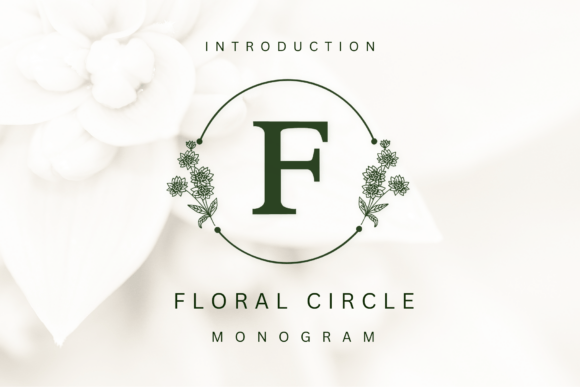
Floral Circle Monogram Font: Elevate Your Celebrations with Elegance
The world of typography is vast and diverse, with fonts ranging from simple and modern to intricate and ornate. For special occasions, a font that exudes elegance and sophistication is often desired. This is where the Floral Circle Monogram Font comes into play, a beautifully designed font that combines decorative letters with a stunning floral round frame. In this article, we’ll delve into the details of this exquisite font, exploring its features, uses, and benefits, particularly for invitations and wedding cards.
What is Floral Circle Monogram Font?
Floral Circle Monogram Font is an elegant and charming typeface designed specifically for special occasions. Its unique feature is the incorporation of decorative letters within a beautiful flower round frame, creating a monogram that is both sophisticated and eye-catching. This font is perfect for those looking to add a touch of luxury and refinement to their celebration stationery, including wedding invitations, birthday cards, and other festive announcements.
Key Features of Floral Circle Monogram Font
- Decorative Letters: The font features intricately designed letters that are both stylish and elegant.
- Floral Round Frame: A beautiful flower round frame encases the letters, adding a touch of nature and charm.
- Monogram Style: The font is designed to create stunning monograms, perfect for personalizing invitations and cards.
- Elegant and Sophisticated: The overall design exudes elegance and sophistication, making it ideal for special occasions.
Uses of Floral Circle Monogram Font
The versatility of Floral Circle Monogram Font makes it suitable for various applications, particularly in the realm of celebrations and special events. Here are some popular uses of this beautiful font:
Popular Use Cases
- Wedding Invitations: Add a touch of romance and elegance to your wedding invitations with this stunning font.
- Birthday Cards: Create personalized and memorable birthday cards with the Floral Circle Monogram Font.
- Invitations: Use the font for baby showers, bridal showers, anniversaries, and other celebrations.
- Stationery: Enhance your stationery, including letterheads, thank-you cards, and greeting cards, with this elegant font.
Benefits of Using Floral Circle Monogram Font
Choosing the right font for your special occasion stationery can be daunting, but Floral Circle Monogram Font offers numerous benefits that make it an excellent choice. Here are some advantages of using this font:
Advantages of Floral Circle Monogram Font
- Unique and Memorable: The font’s distinctive design ensures that your invitations and cards stand out and are remembered.
- Elegant and Sophisticated: The font adds a touch of luxury and refinement to your celebration stationery.
- Customizable: The monogram style allows for personalization, making your stationery truly unique.
- Easy to Use: The font is user-friendly and can be easily integrated into your design projects.
Tips for Using Floral Circle Monogram Font
To make the most of Floral Circle Monogram Font, consider the following tips:
Design Tips
- Pair with Simple Backgrounds: Allow the font to be the focal point by pairing it with simple backgrounds.
- Experiment with Colors: Try different color combinations to find the perfect match for your celebration theme.
- Use for Headlines: Utilize the font for headlines and titles to create a striking impact.
- Mix with Other Fonts: Combine Floral Circle Monogram Font with other fonts to create a unique and visually appealing design.
Floral Circle Monogram Font is a stunning and elegant typeface designed to elevate your celebrations with sophistication and charm. Its unique combination of decorative letters and a beautiful floral round frame makes it perfect for special occasion stationery, including invitations and wedding cards. With its versatility, customizability, and ease of use, this font is sure to become a favorite among designers and DIY enthusiasts alike. Whether you’re planning a wedding, birthday party, or other celebration, Floral Circle Monogram Font is an excellent choice for adding a touch of luxury and refinement to your stationery.